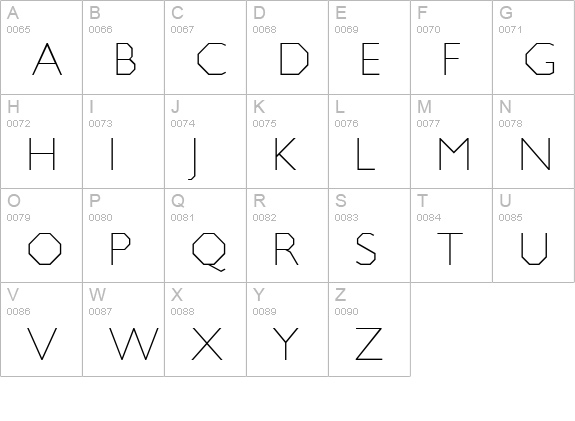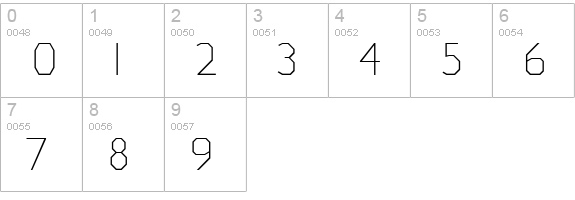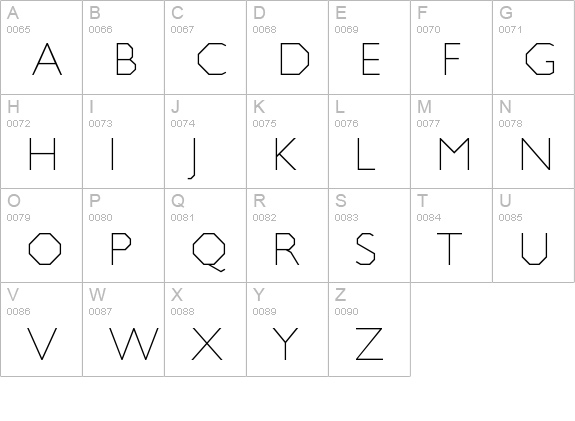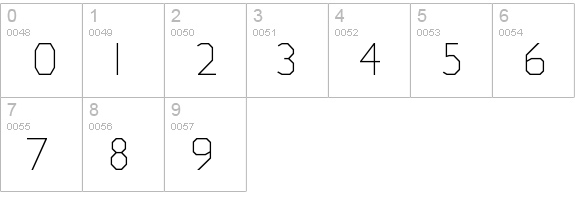
Jillican ExtraLight is an airy, ultra-refined variant in the Jillican typeface family \xE2\x80\x94 well suited to minimalist headlines and refined display use.
Jillican ExtraLight font is a delicate and elegant typeface that exudes a sense of sophistication and modernity. Its thin strokes and graceful curves make it perfect for adding a touch of refinement to any design project. With its subtle yet striking appearance, Jillican ExtraLight font is a versatile choice for a wide range of applications, from branding and packaging to editorial design and invitations. What sets Jillican ExtraLight font apart is not just its beautiful design, but also the fact that it is available for free download at FontsMarket.com. This means that you can easily access this high-quality font without any cost, making it a valuable addition to your font library. Whether you're working on a professional project or a personal creative endeavor, Jillican ExtraLight font is sure to elevate your designs and leave a lasting impression.